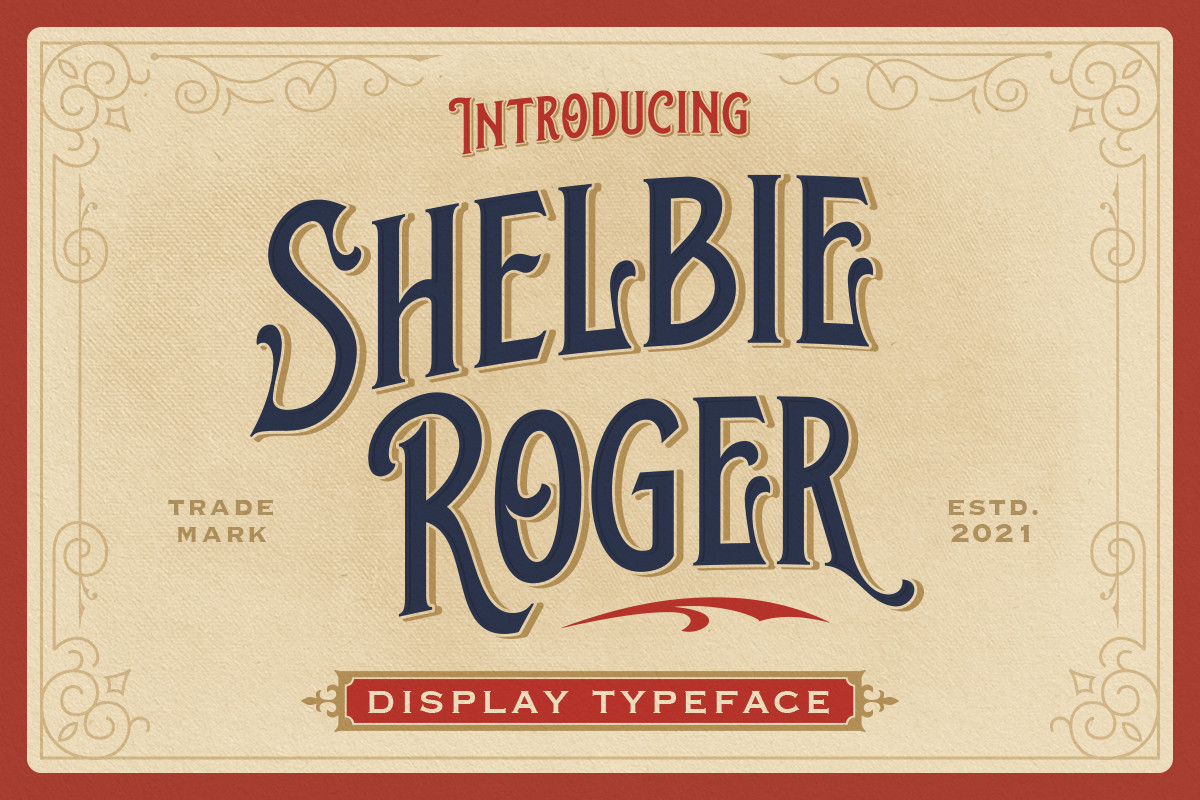
Shelbie Roger Font
Shelbie Roger Font is perfect for personal lifestyle blog headers, friendly small business branding, approachable wellness center signage, warm community event posters, personable coaching service materials, inviting café menu designs, cheerful children's educational resources, welcoming therapy practice logos, neighborly local business advertising, and heartfelt personal branding projects. This personable typeface brings authentic warmth to family photography studios, community nonprofit organizations, personal development workshops, friendly neighborhood businesses, and approachable professional service providers.
Shelbie Roger Font is exciting because it captures the essence of genuine human connection and personal authenticity through its warmly crafted letterforms. The font features friendly, approachable characters with gentle curves and personal touches that evoke the feeling of handwritten notes from a trusted friend or colleague. Its distinctive construction demonstrates personal care with carefully balanced proportions that create an immediate sense of trustworthiness and human warmth. The font's personable charm and authentic friendliness make it perfect for brands seeking to communicate genuine connection, personal service, and approachable professionalism in their visual communications.
The Shelbie Roger Font family includes various friendly styles: Light, Regular, Medium, Bold, Italic, Script, Condensed, Extended, Casual, Warm, Personal, and Friendly variants. Each family member maintains the core personable DNA while offering different levels of approachability for diverse human-centered design applications. The comprehensive font collection ensures consistent personal branding across community-focused campaigns, service-oriented businesses, and relationship-building communication materials.
Shelbie Roger Font Free Download offers designers an exceptional opportunity to infuse their projects with authentic human warmth and personal connection. This remarkable typeface seamlessly blends personal charm with professional functionality, making it ideal for both digital community platforms and premium relationship-focused print materials. The font's carefully crafted friendly details and warm personality create memorable visual experiences that resonate with audiences seeking genuine connection, personal service, and authentic human interaction.
Whether you're creating personal brand identities, designing community-focused marketing materials, developing approachable website headers, or crafting relationship-building promotional campaigns, Shelbie Roger Font delivers outstanding personal appeal and human authenticity. The font's distinctive friendly personality excels in personal logos, community packaging design, approachable applications, and service projects where human connection and authentic warmth are essential.